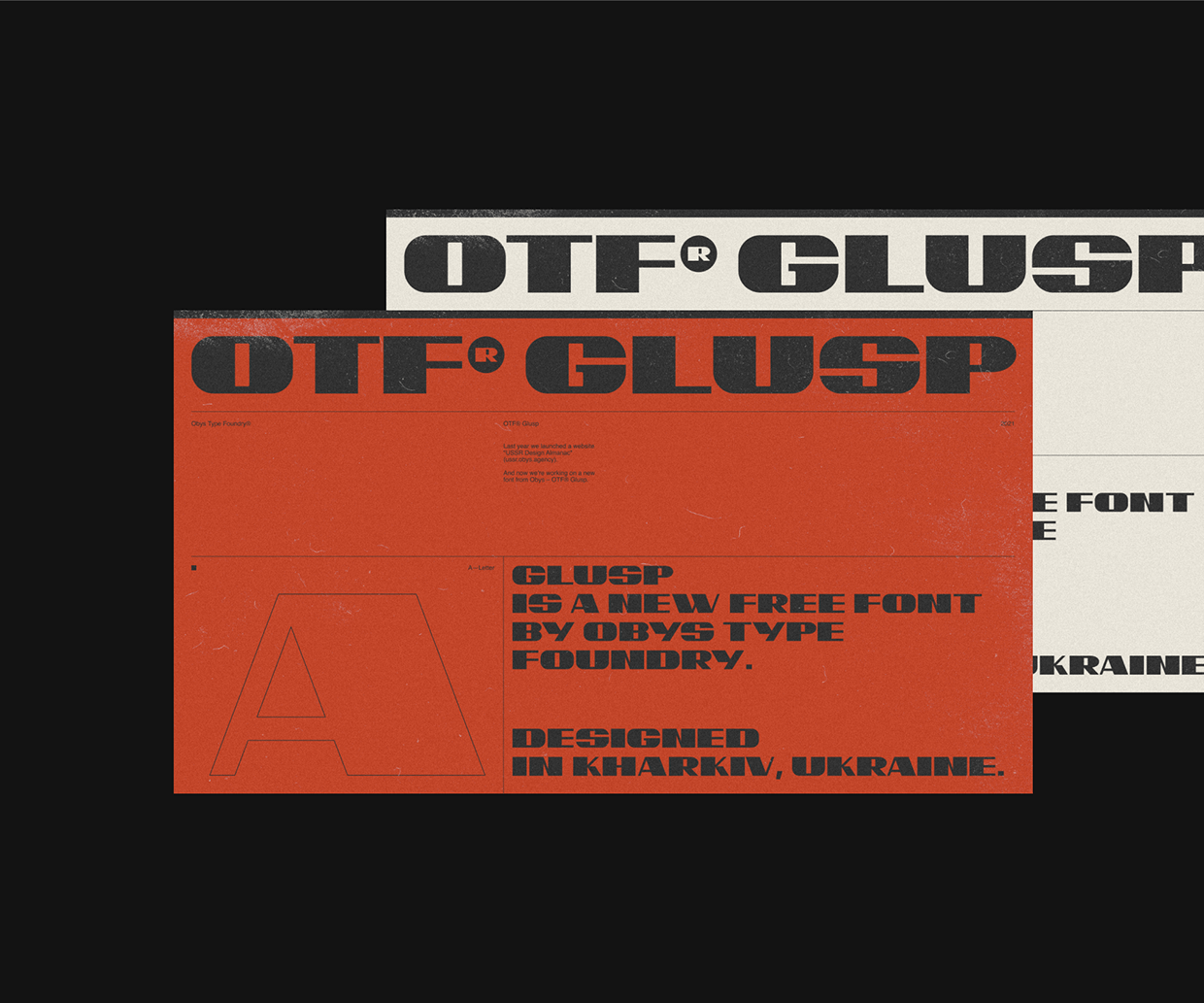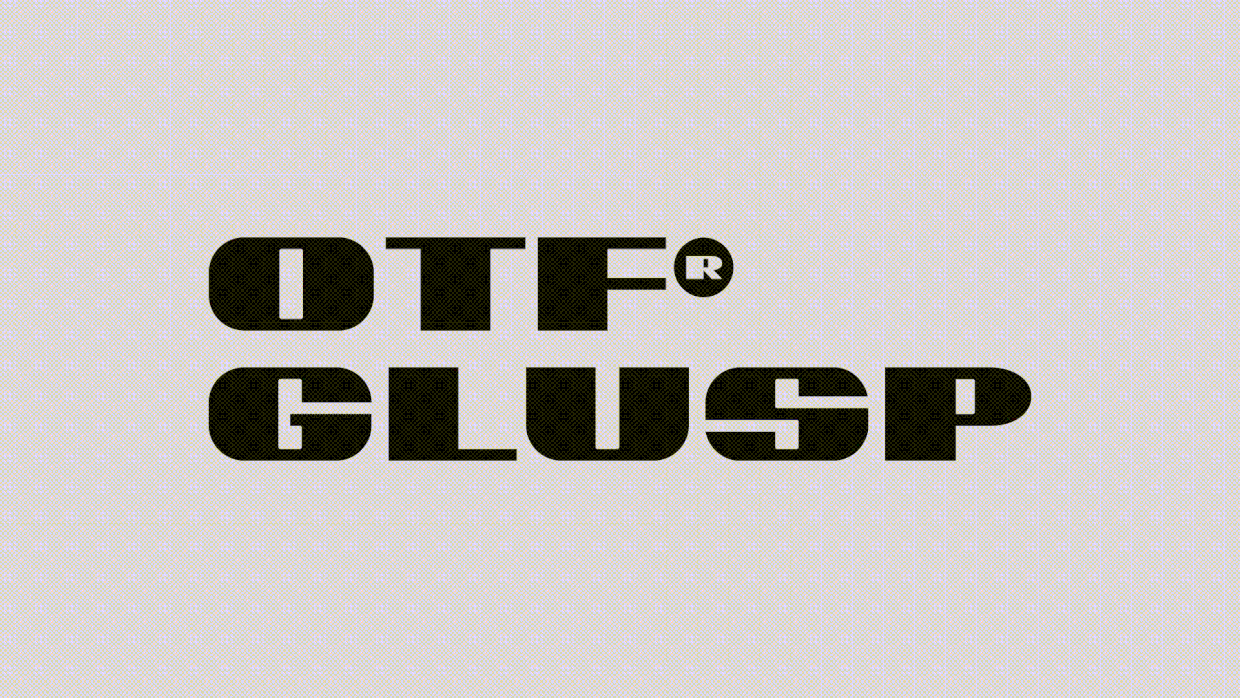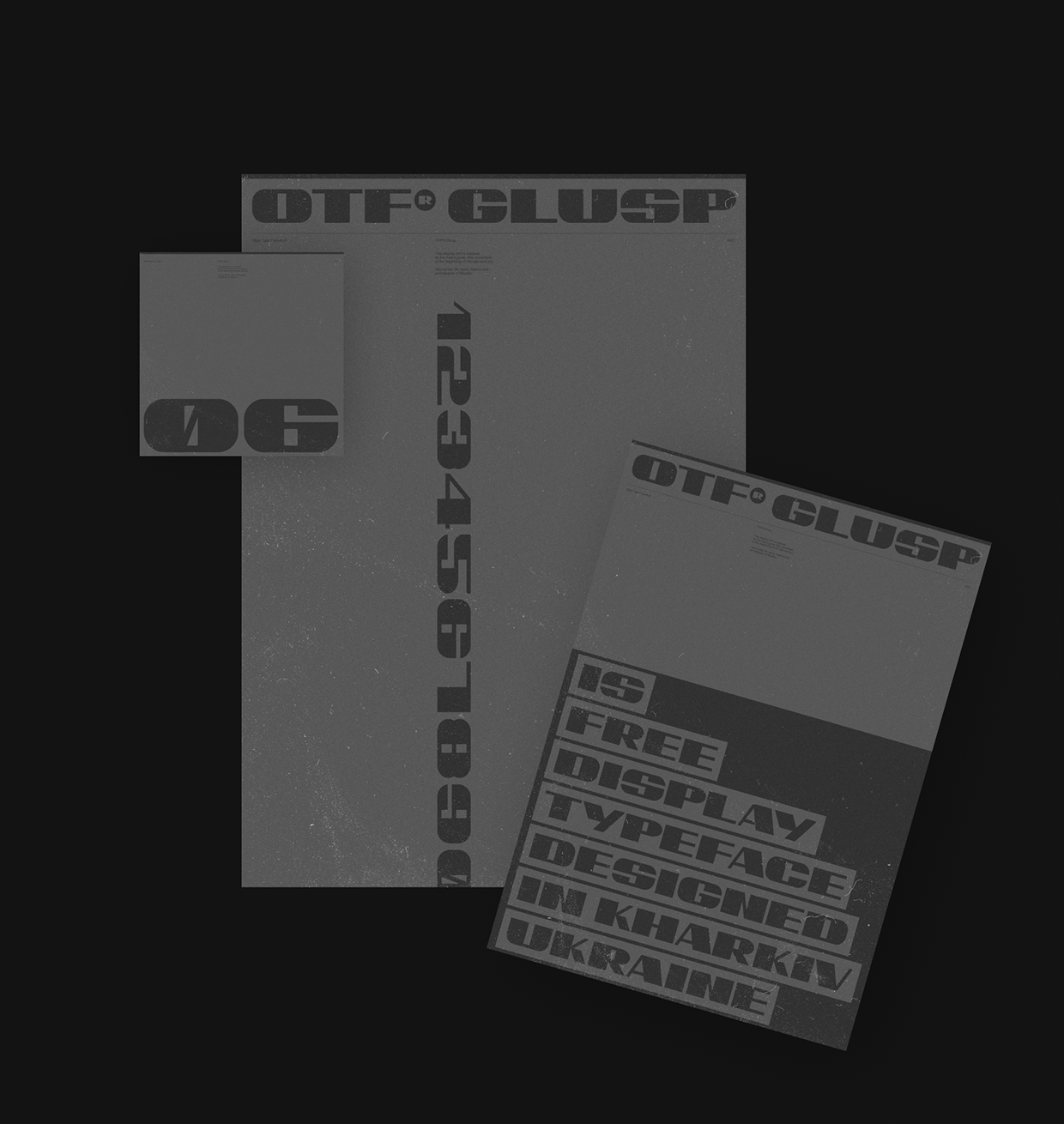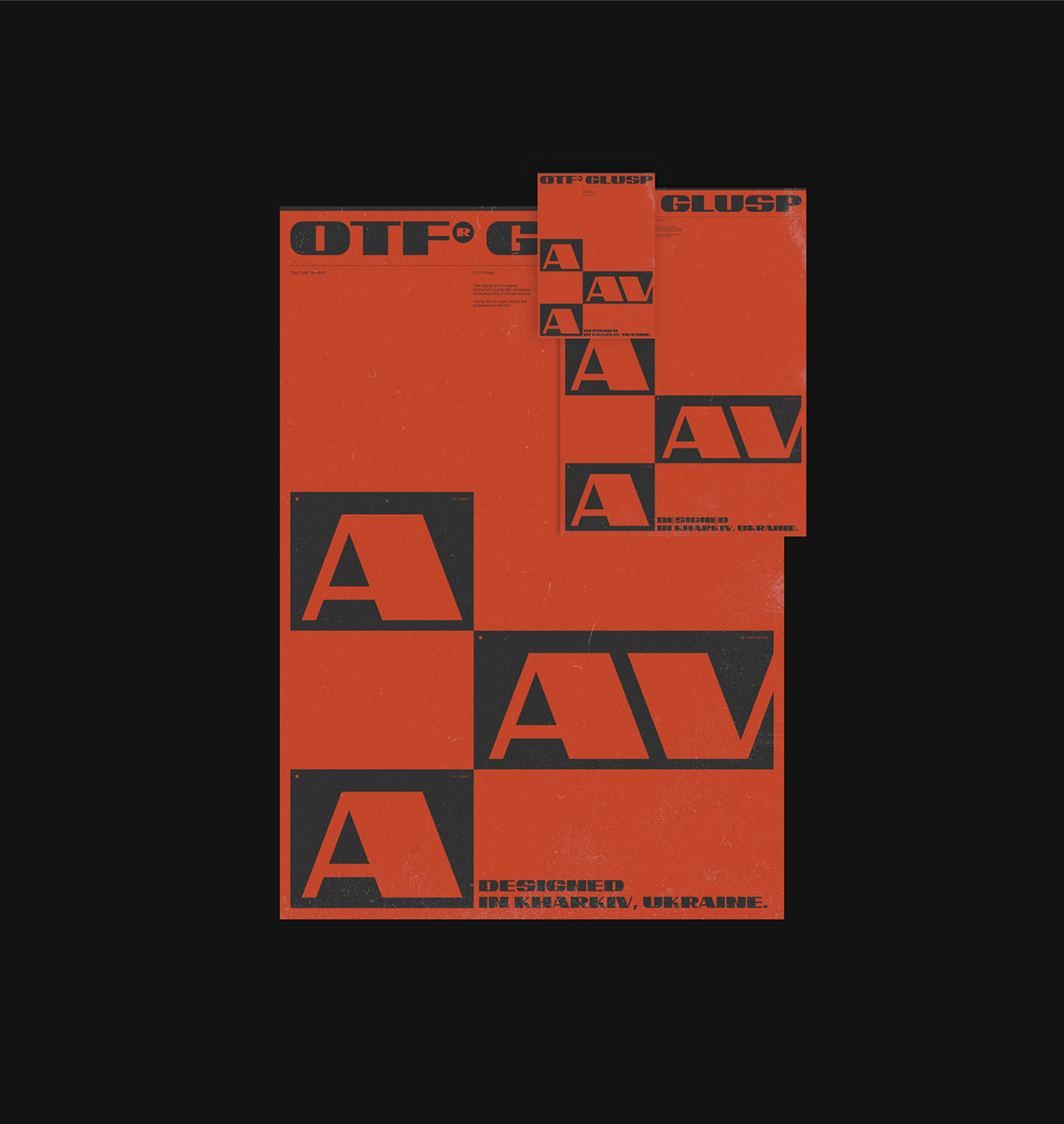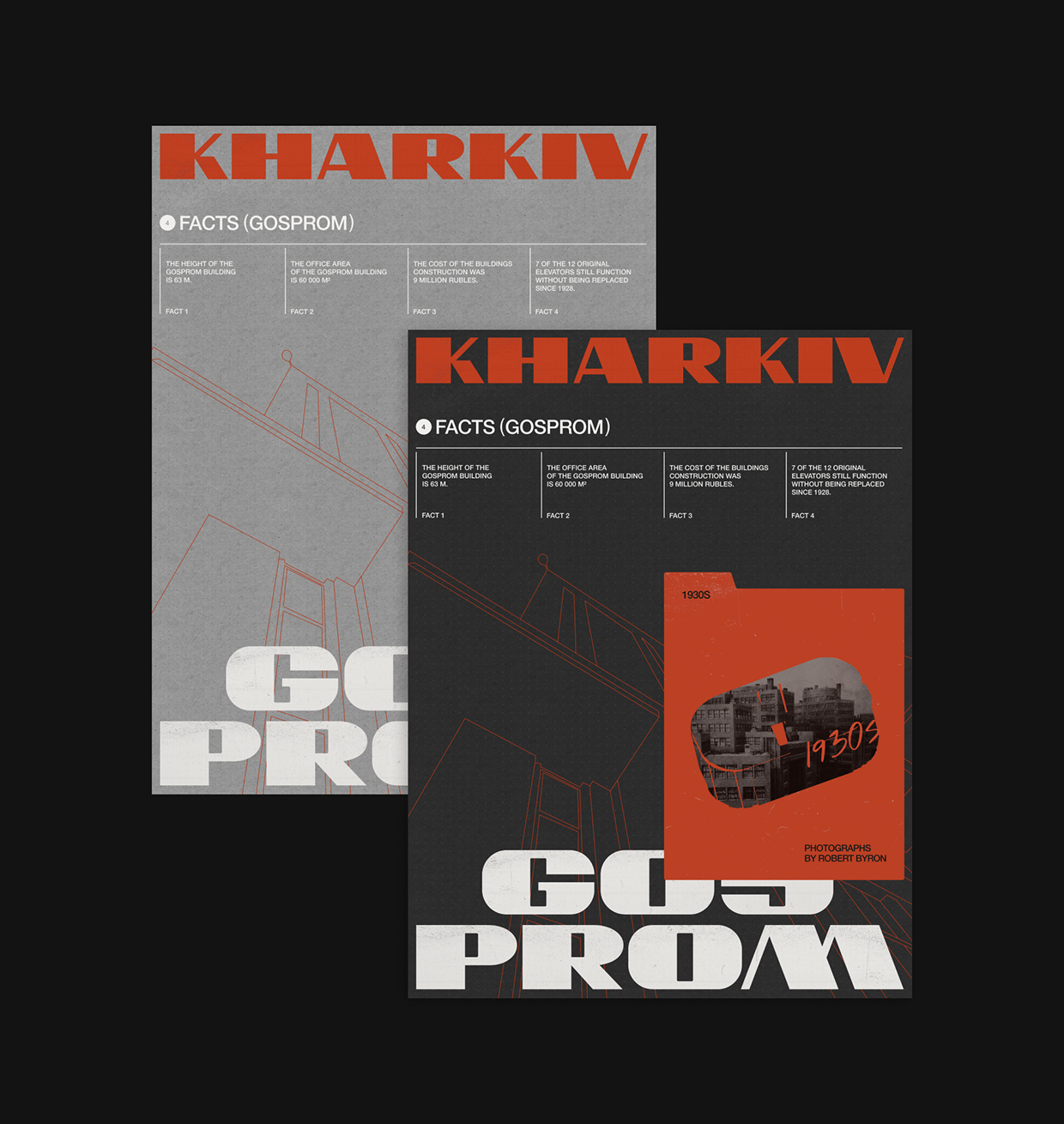
OTF® GLUSP | FREE FONT
OTF® Glusp is a display font influenced by the Avant-garde movement from the early twentieth century and the streets of Kharkiv.